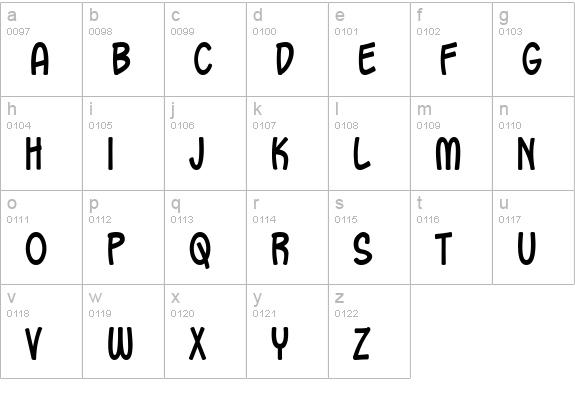
Oh Crud BB Font Details
Oh Crud BB font is a playful and quirky typeface that exudes a sense of fun and creativity. Its irregular shapes and uneven lines give it a handmade and artistic feel, perfect for adding a touch of whimsy to any design project. This font is versatile and can be used for a variety of purposes, from branding to social media graphics to invitations. What makes Oh Crud BB font even better is that it is available for free download at FontsMarket.com. This means you can easily access this charming font and use it in your projects without any cost. Don't miss out on the opportunity to add a unique and eye-catching element to your designs with Oh Crud BB font!